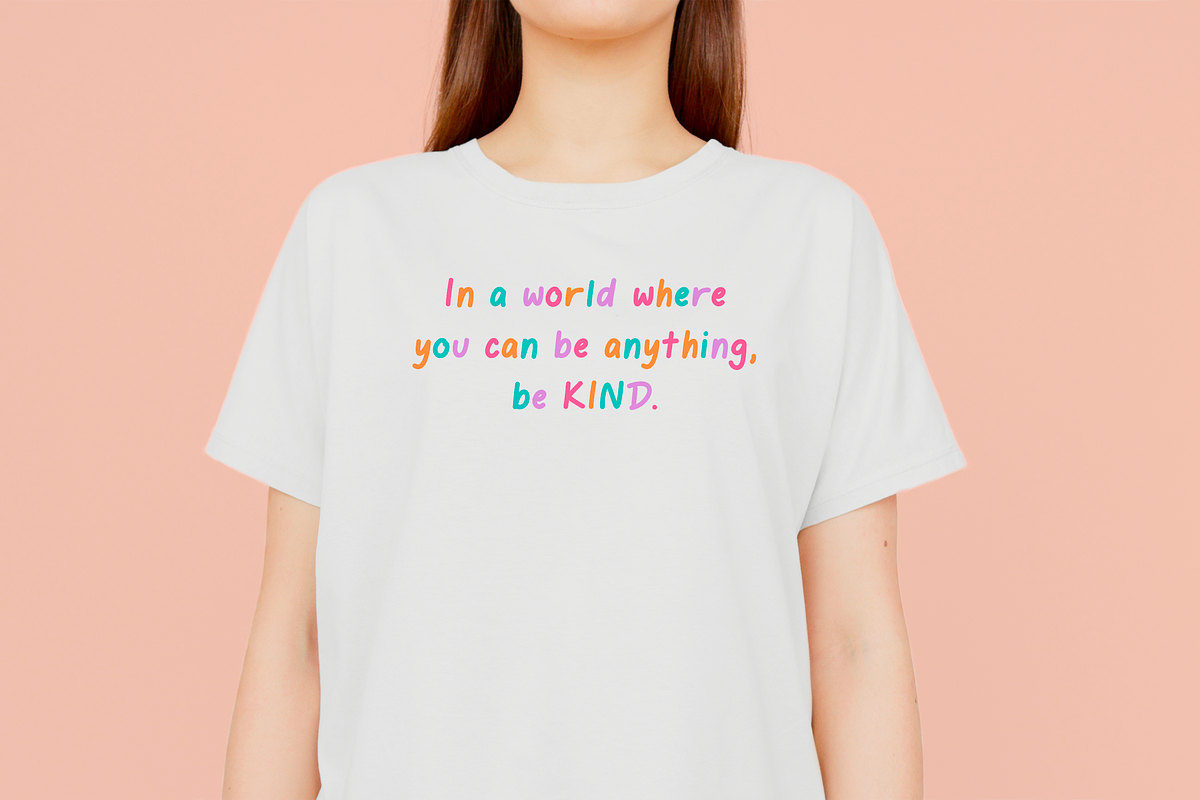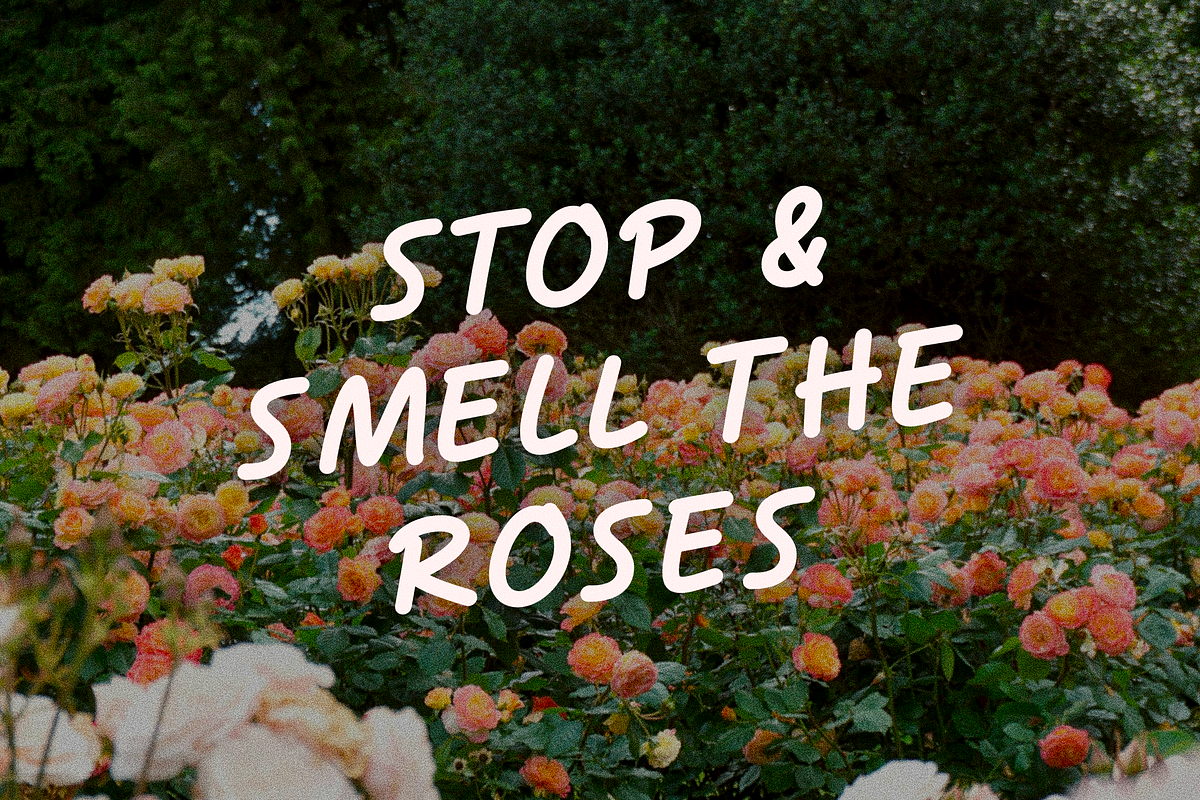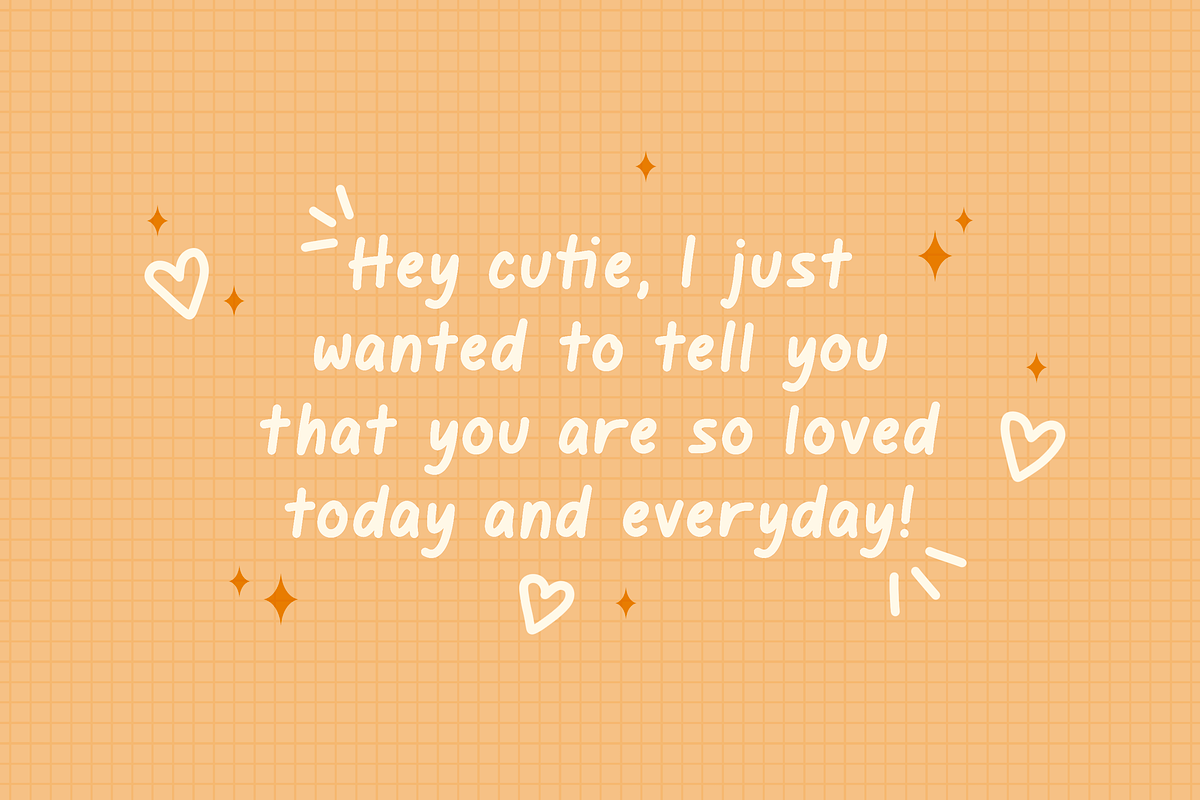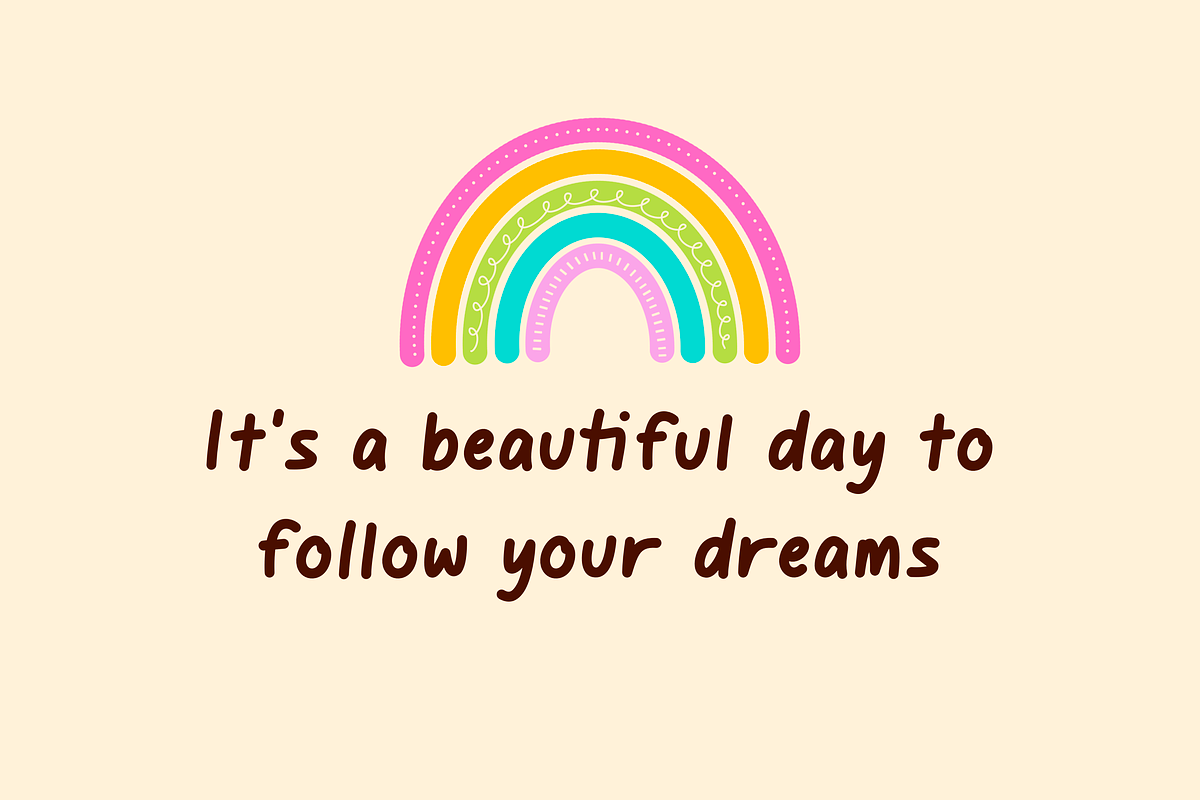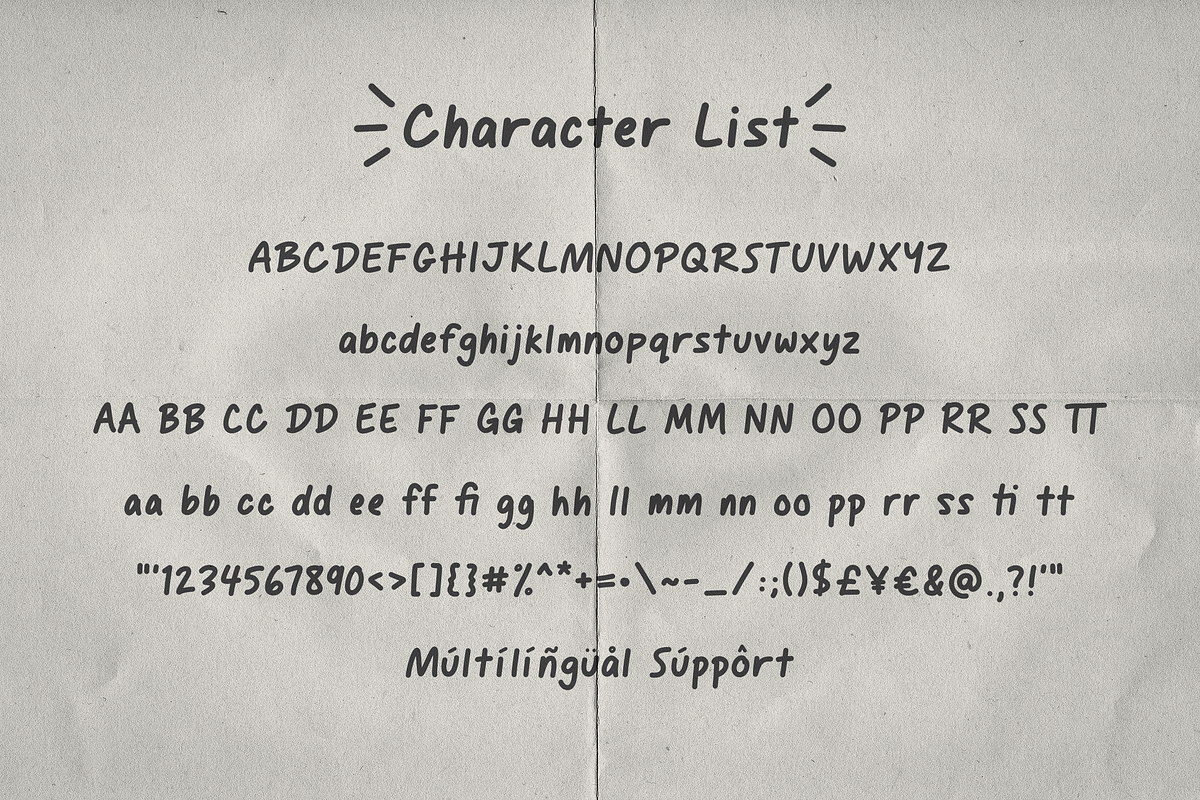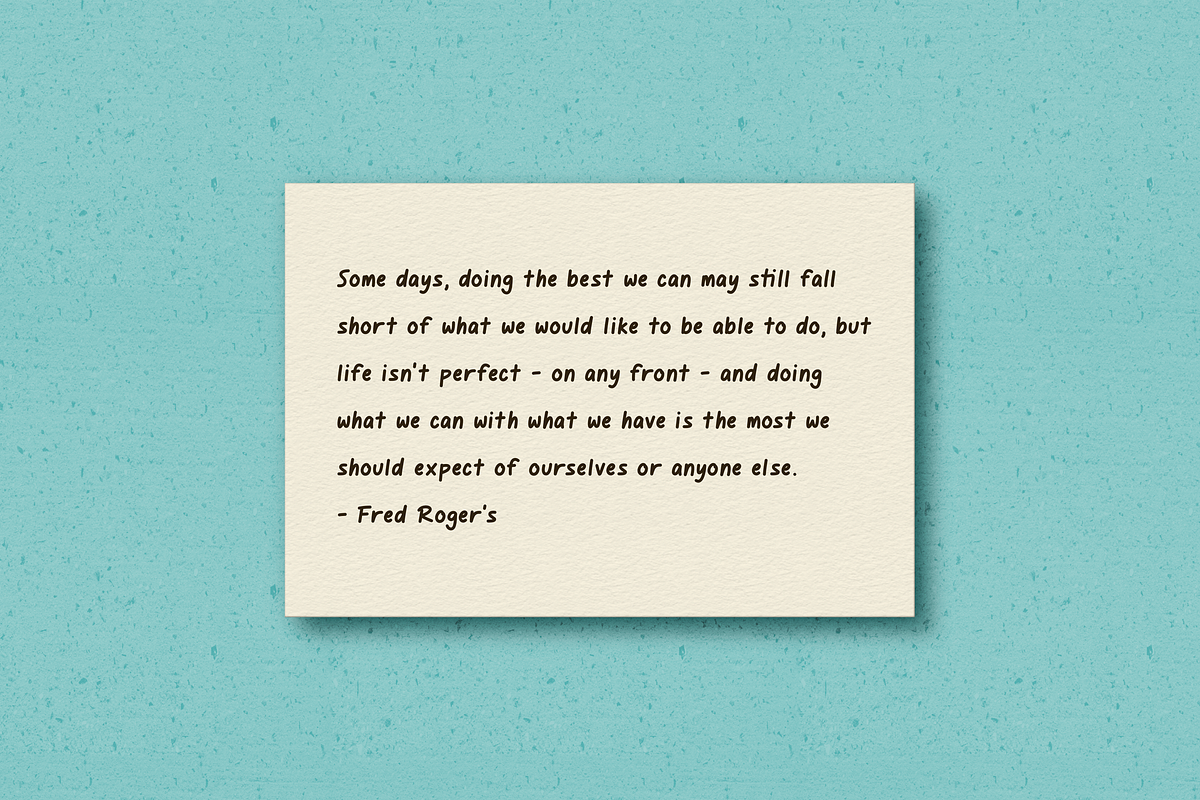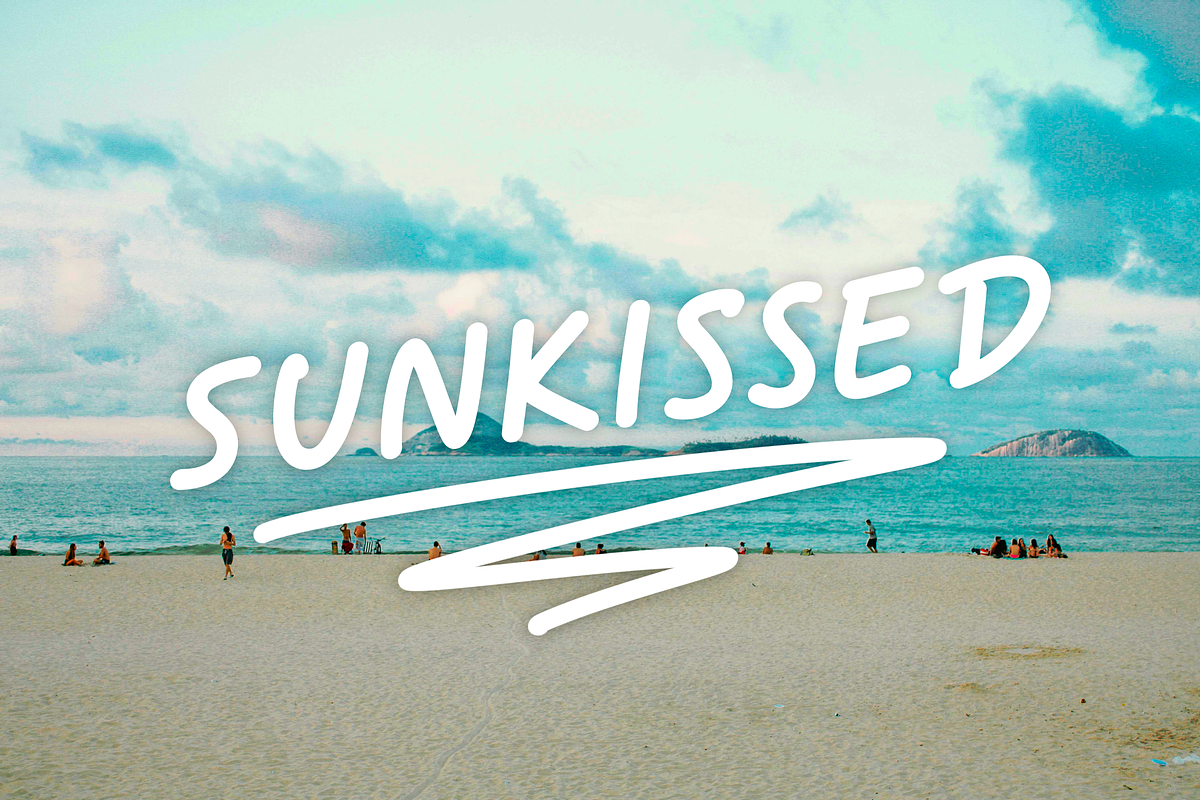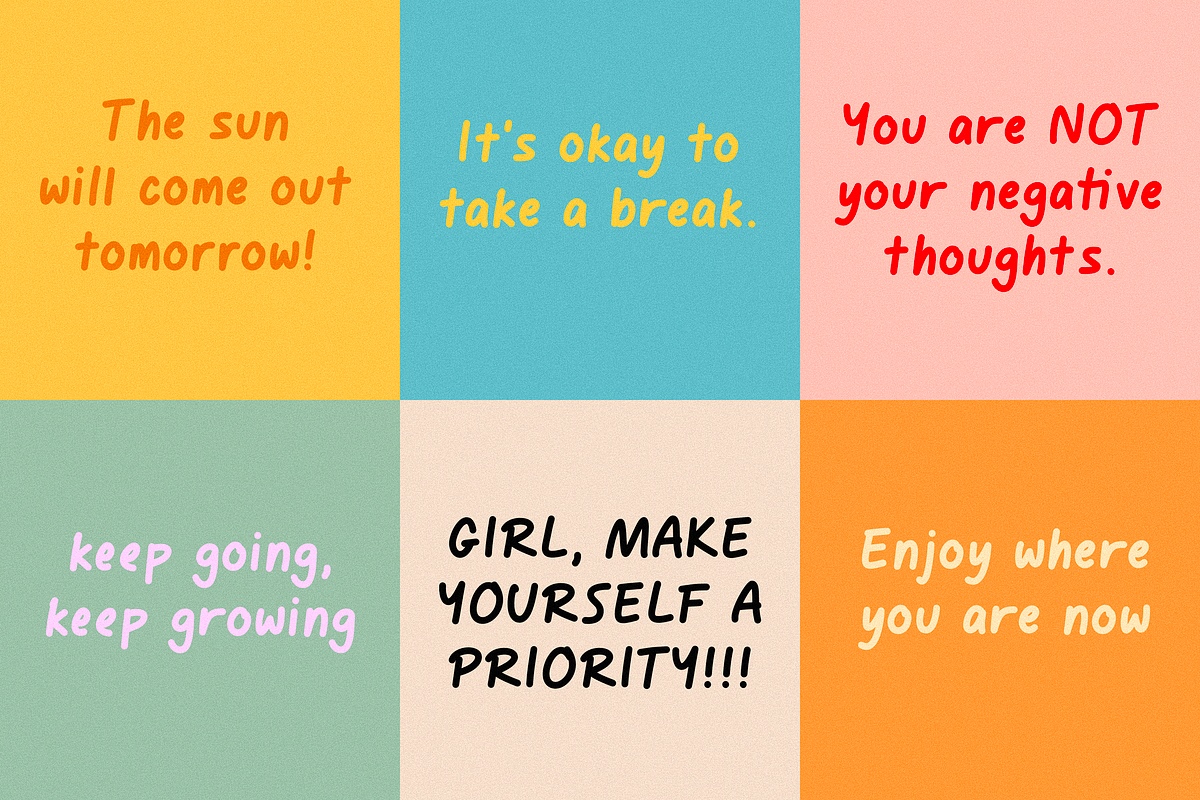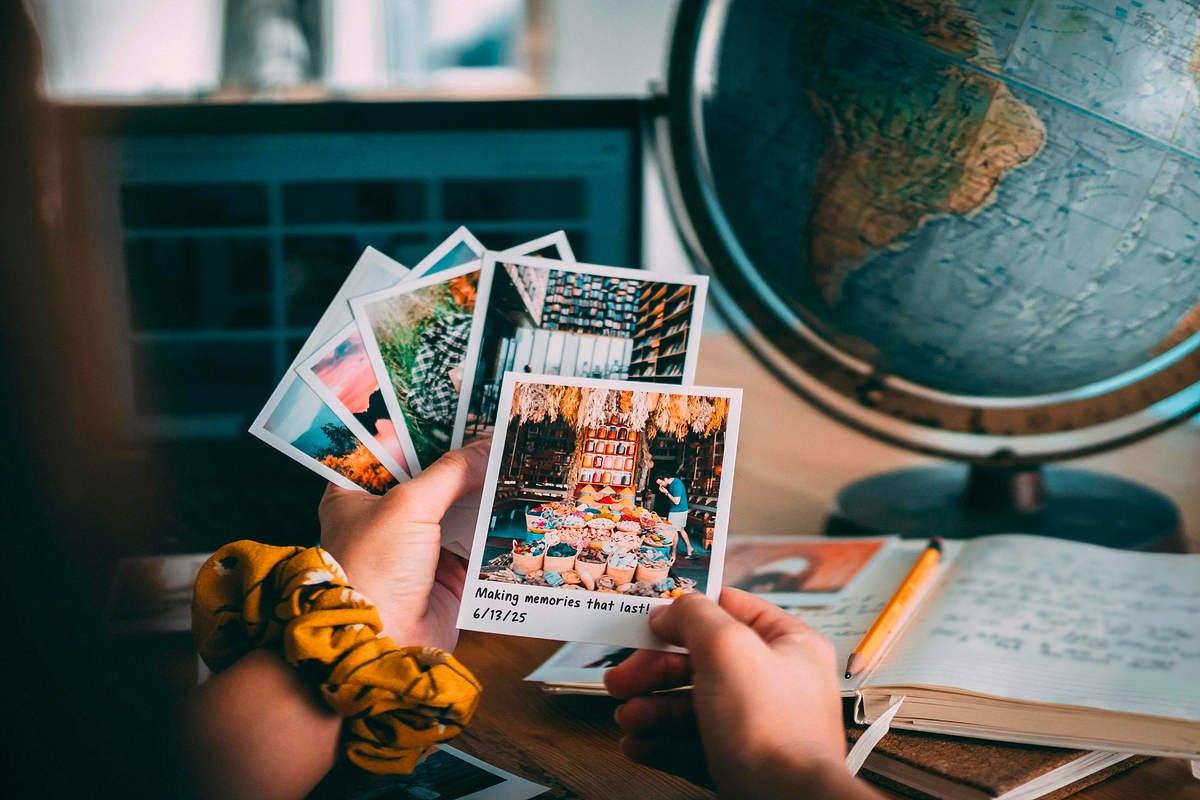
Dandelions Cute Handwritten Font
Introducing dandelions, a super cute, bold, handwritten font! This neat & natural handwriting style will give any design a classic & organic feel. Complete with multilingual support, this font is perfect for any and all journaling, note taking, logos, branding, invitations, stickers, t-shirts, posters, and much more!.